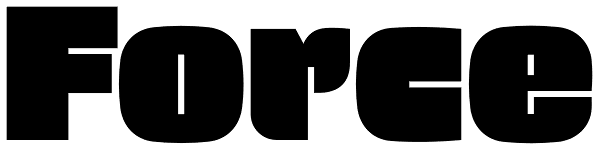
Force
Force is a contemporary sans serif ultra-black family designed by Ricardo Esteves. There are 4 font styles: Force Regular, with a upright roman structure; Force Italic, with more cursive lowercase forms; Force Shadow, that can be used alone or as a...